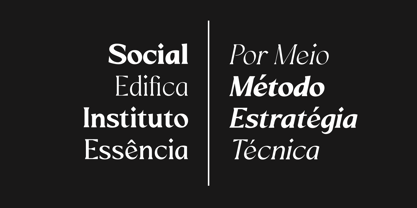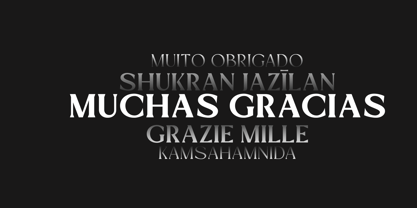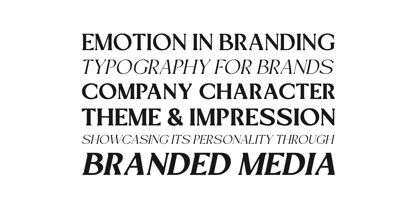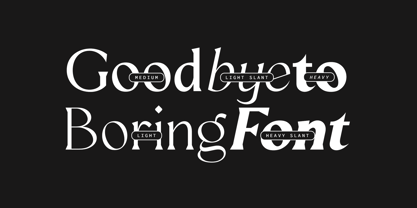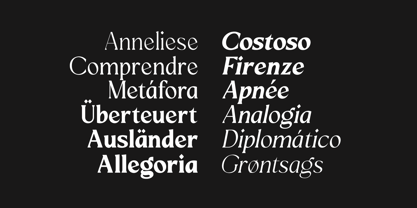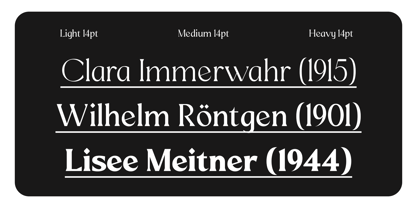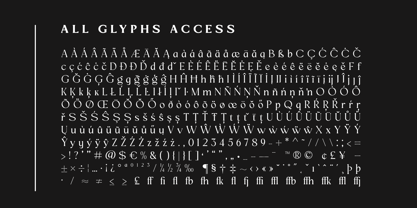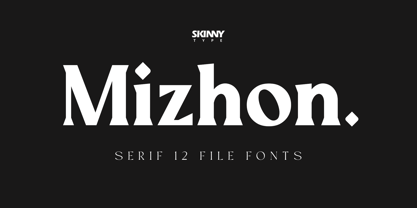
Mizhon Serif
The Mizhon Serif Font Family was designed by Muhajir and published by Skinny Type. Mizhon Serif contains 13 styles and family package options. More about this family
Mizhon Serif embodies refinement with confident, sculpted terminals and balanced stroke contrast. The serifs are sharp yet controlled, adding a sense of authority and elegance without feeling overly traditional. Its structured proportions and open counters ensure clarity at large display sizes, while the subtle contrast gives headlines a sophisticated rhythm. This style is ideal for editorial layouts, luxury branding, and premium packaging where a classic presence with a modern touch is essential.